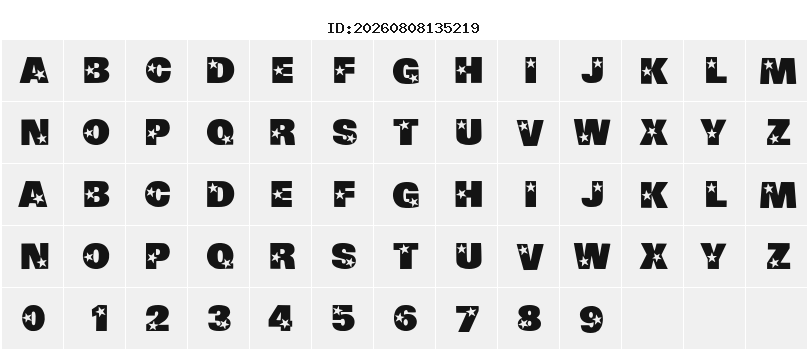
Politician.ttf is a modern, elegant sans-serif font designed for ultimate readability and visual harmony. Perfect for branding, headlines, web design, and print materials.